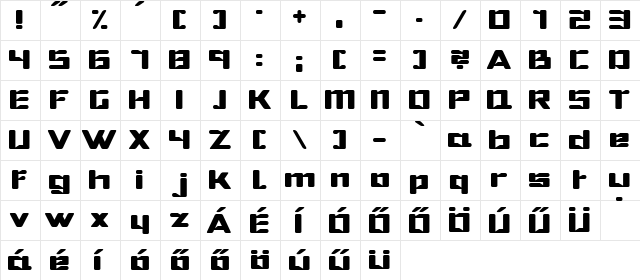
Hibernate Regular Font Preview
Hibernate Regular
Design Context for Hibernate Typeface
Hibernate is a composed and adaptable typeface that performs quietly and consistently across a wide range of design contexts.